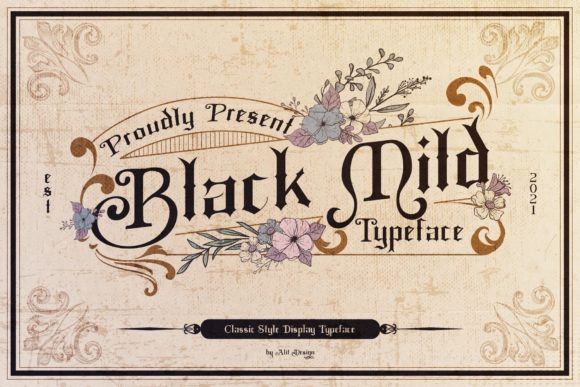
The Magic of Black Mild Font: A Designer’s New Best Friend
I’ll never forget the time I was working on a project for a client who wanted a bold, eye-catching font to make their brand stand out. I scoured the internet for the perfect blackletter font, but nothing seemed quite right. That was until I stumbled upon Black Mild Font. ✨ This distinct blackletter font has been a game-changer for my design work, and I’m excited to share its magic with you.
An Honest Review of Black Mild Font
- 💥 **PUA encoded for easy access**: With Black Mild Font, you can access all the glyphs and swashes with ease, making it a breeze to add unique touches to your designs.
- ✅ **High-quality, crisp lines**: The font’s bold, blackletter design looks amazing in both print and digital formats.
- 🌈 **Versatile and expressive**: From Gothic-inspired crafts to modern, edgy designs, Black Mild Font adapts to any style.
While Black Mild Font is an amazing addition to any design project, there are a few things to keep in mind: 🤔
- ⚠️ **Limited use in body text**: Due to its bold, blackletter design, Black Mild Font is best used for headings, titles, or accents.
- ⚠️ **Some characters may require manual adjustment**: Depending on the design, you might need to tweak character spacing or sizing for optimal results.
The Designer Inspiration Behind Black Mild Font
Black Mild Font was inspired by traditional Gothic calligraphy and the works of legendary type designers like Edward Johnston and Rudolf Koch. The font’s creator aimed to craft a bold, yet elegant font that would add a touch of sophistication to any design project.
| Can I use Black Mild Font for body text? | While Black Mild Font is a beautiful font, it’s best suited for headings, titles, or accents due to its bold, blackletter design. For body text, consider using a clearer, more legible font. |